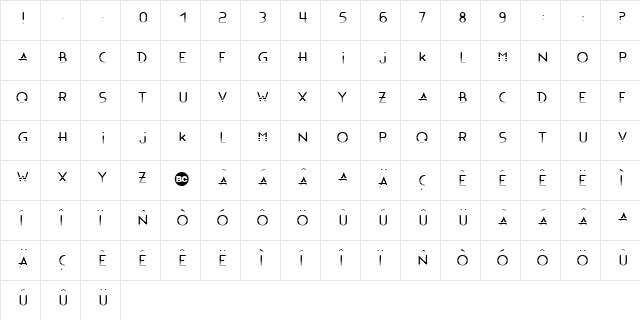
Bonus Bling Bling
Foundry BC - Dker
DesignerBC
Design Context for Bonus Typeface
Bonus offers clean, dependable letterforms without strong stylistic allegiance, making it a practical choice for designers who need flexibility.
Pro Tip: Pair Bonus with a font of contrasting weight or personality to build a more expressive typographic hierarchy.